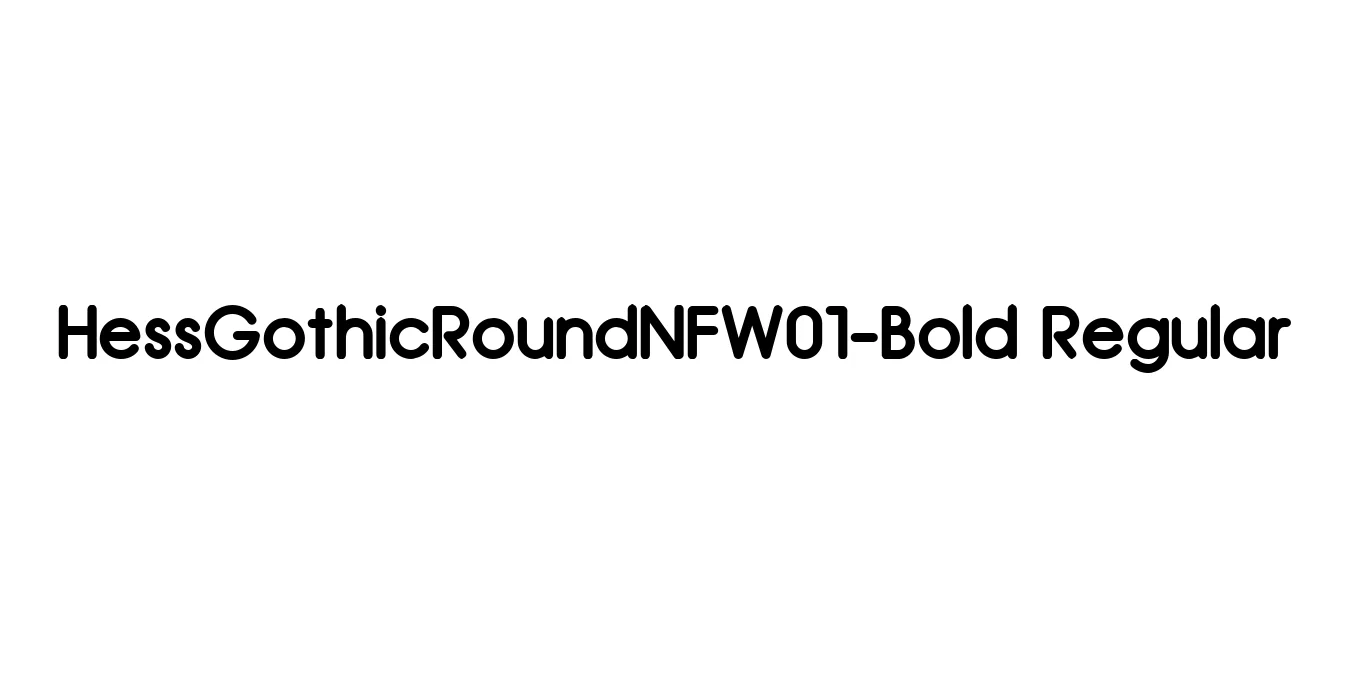
HessGothicRoundNFW01-Bold Regular
Designed by Nick Curtis
HessGothicRoundNFW01-Bold Regular is a contemporary revival designed by Nick Curtis, based on the classic typeface designs of Sol Hess. This font captures the essence of early 20th-century geometric sans-serifs but modifies them with soft, rounded terminals. This adjustment transforms the stern, industrial feel of traditional gothic type into a more approachable and friendly aesthetic, making it suitable for modern digital and print interfaces.
Historically, the original Hess Gothic was a staple of Lanston Monotype's library, known for its clarity and functional design. Nick Curtis's interpretation, specifically in the Bold weight, emphasizes visual weight and legibility, making it an excellent choice for designers who need a font that stands out without feeling aggressive. It seamlessly bridges the gap between Art Deco elegance and modern geometric precision.
HessGothicRoundNFW01-Bold Regular Best Uses
Excellent for high-impact titles that require a soft, friendly touch.
Perfect for creating modern, approachable corporate identities.
Highly readable at large sizes, making it ideal for event signage and advertisements.
Adds a distinct, professional character to landing page hero sections.